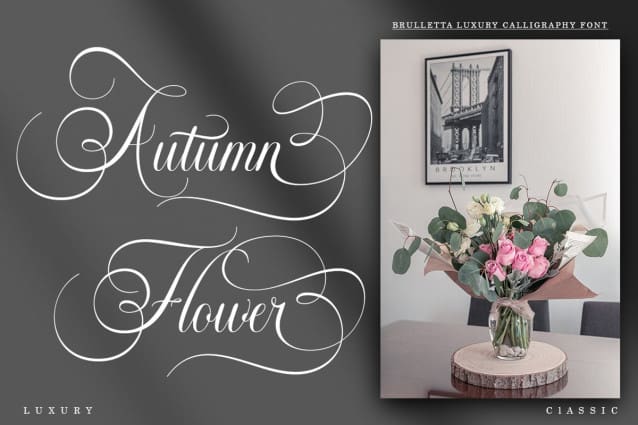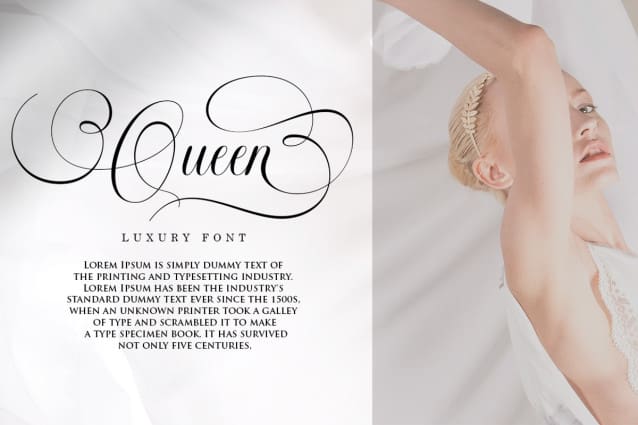
Brulletta Font
Brulletta Font is a Luxury calligraphy font, Brulletta is handcrafted with copper plate stylus and features opentype with pua encode, Brulletta is a Luxury Calligraphy includes alternatives, style sets, ligatures, and swashes, Each glyph lowercase has a stylized styling, Swiss is perfect for branding, invitations wedding and cards or quotes.